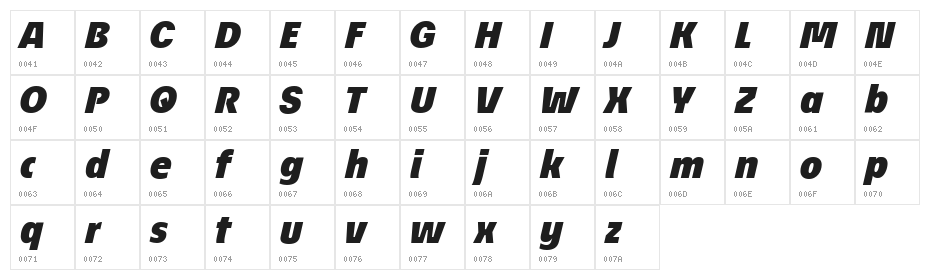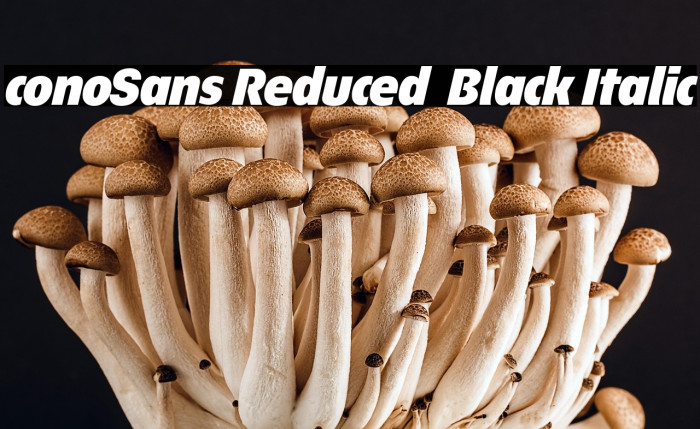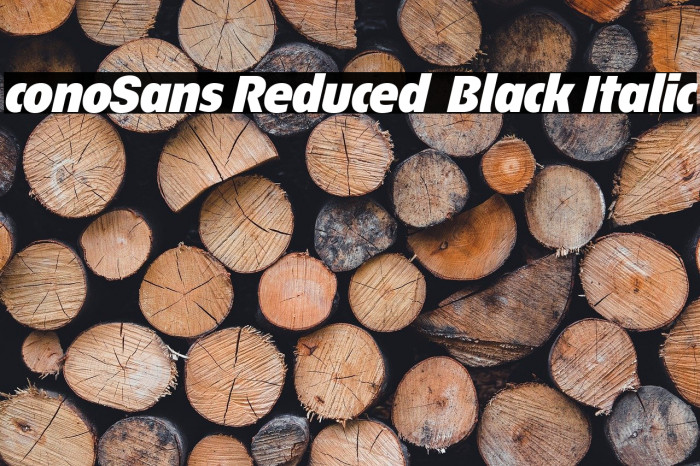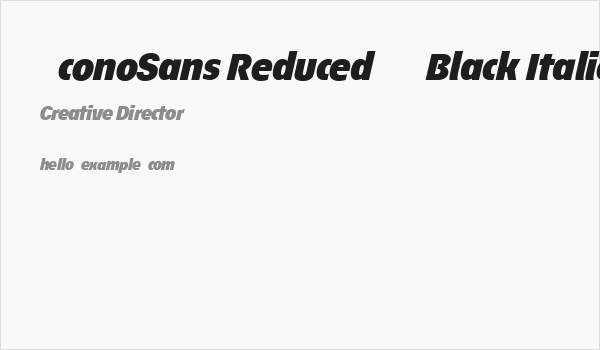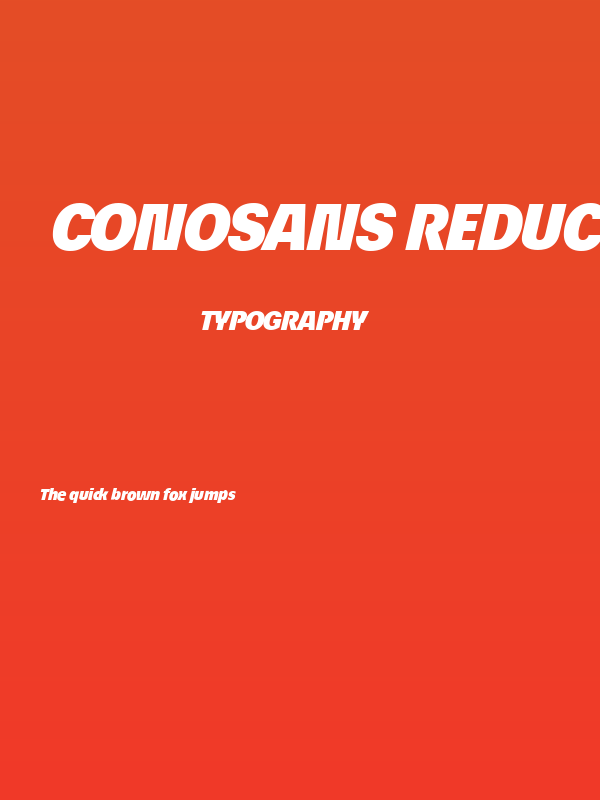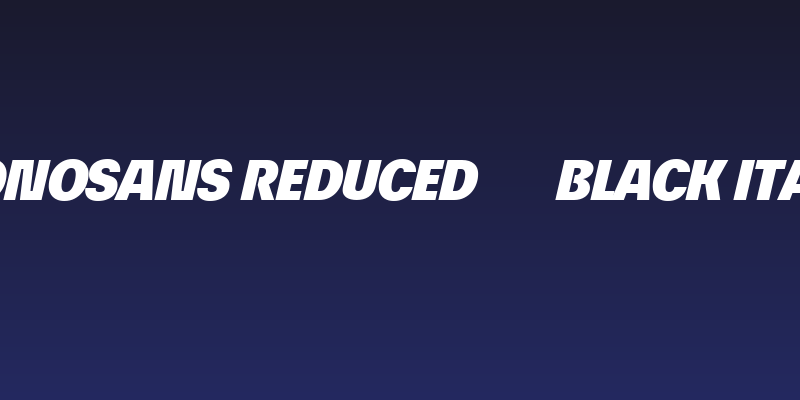
ÉconoSans Reduced 96 Black Italic Font
ÉconoSans Reduced 96 Black Italic Description
This font features a bold and dynamic style with a strong italic slant, giving it a sense of motion and urgency. The characters are thick and robust, making them highly visible and impactful. The sans-serif design ensures a clean and modern appearance, while the italic angle adds a touch of sophistication and flair. The uppercase and lowercase letters maintain a consistent weight, providing uniformity across the text. The numbers and special characters are designed to match the boldness and style of the alphabet, ensuring a cohesive look throughout.
| Proposed Projects | Ideal for headlines, posters, branding, and advertising where a strong and modern impact is needed. |